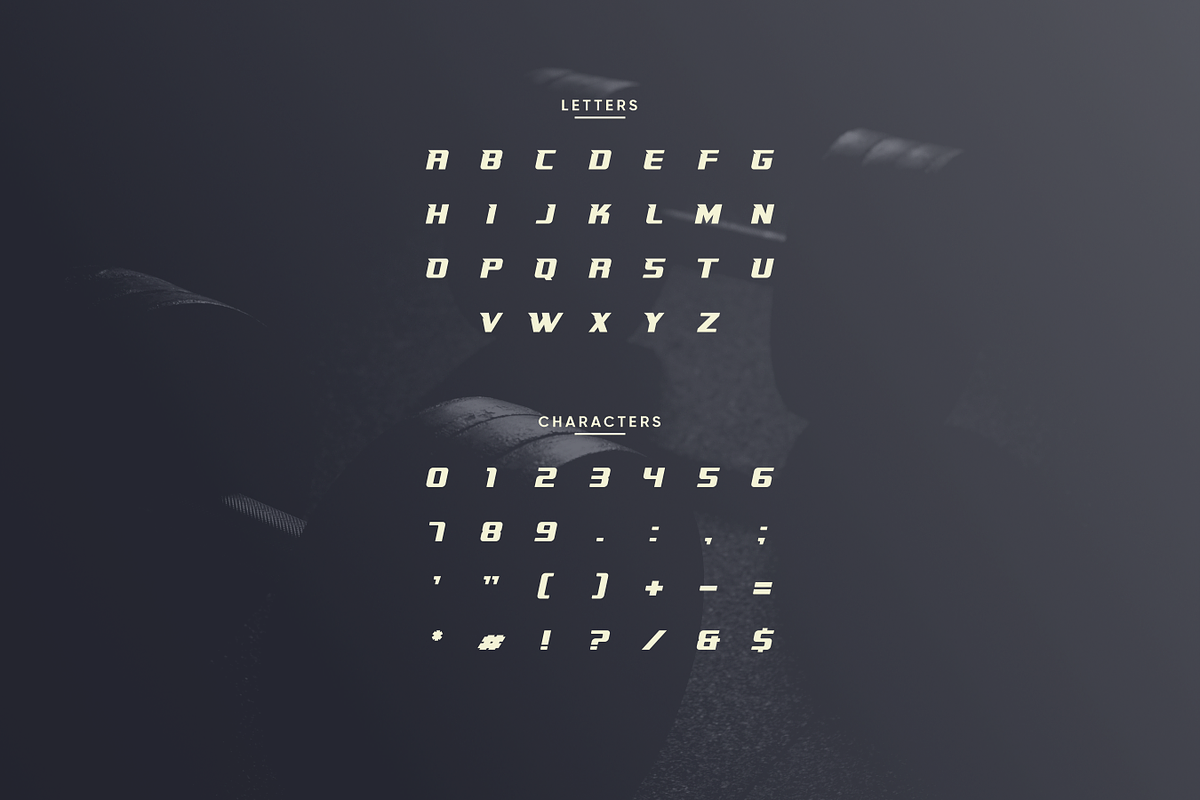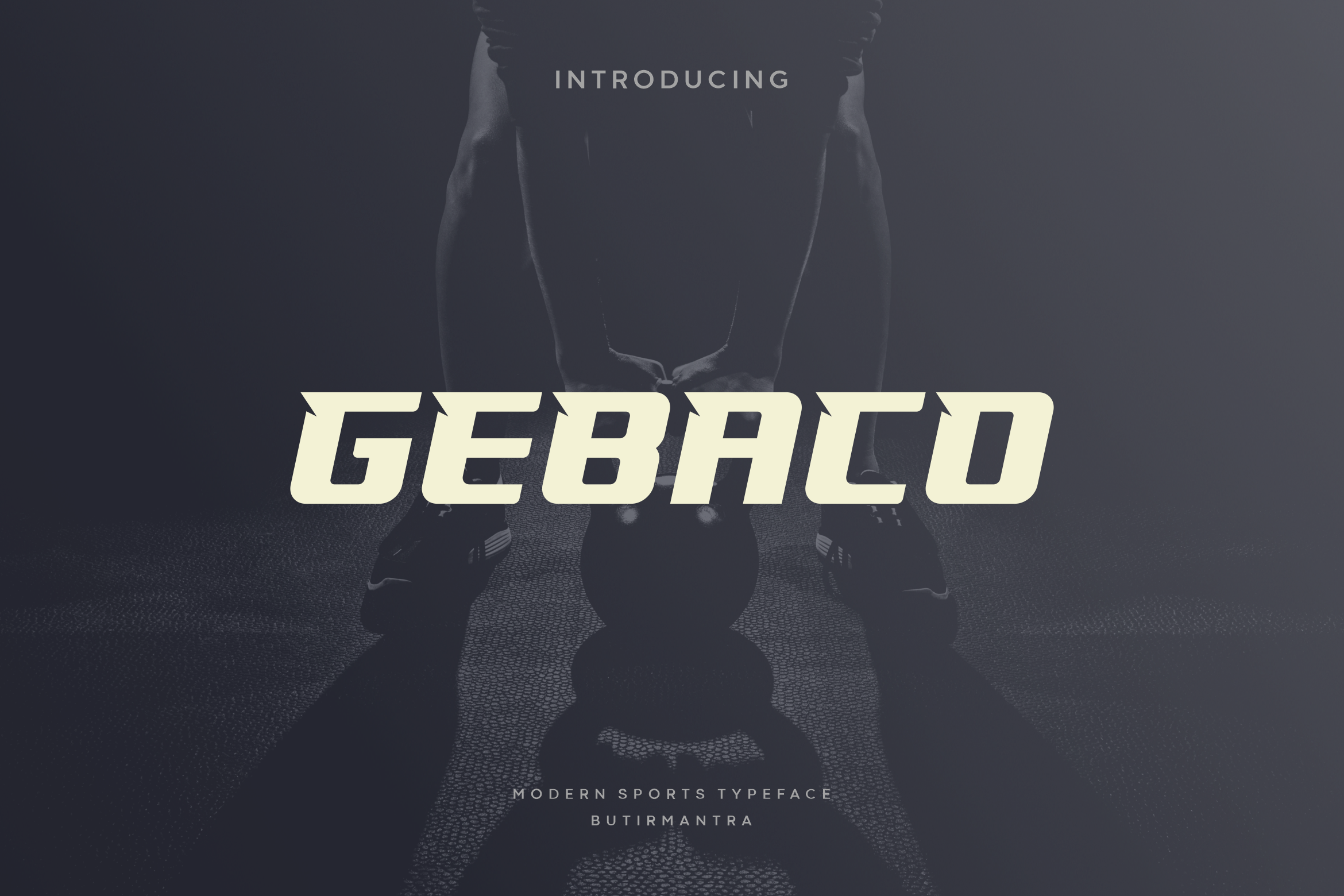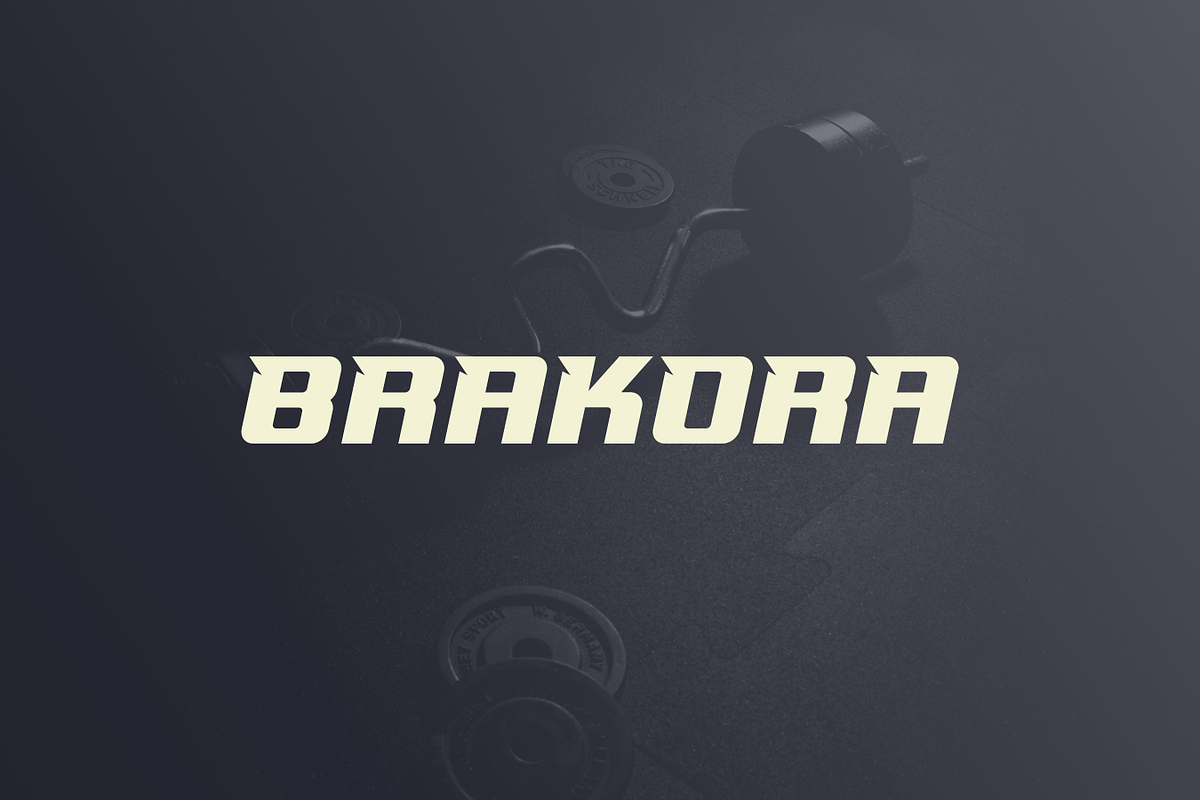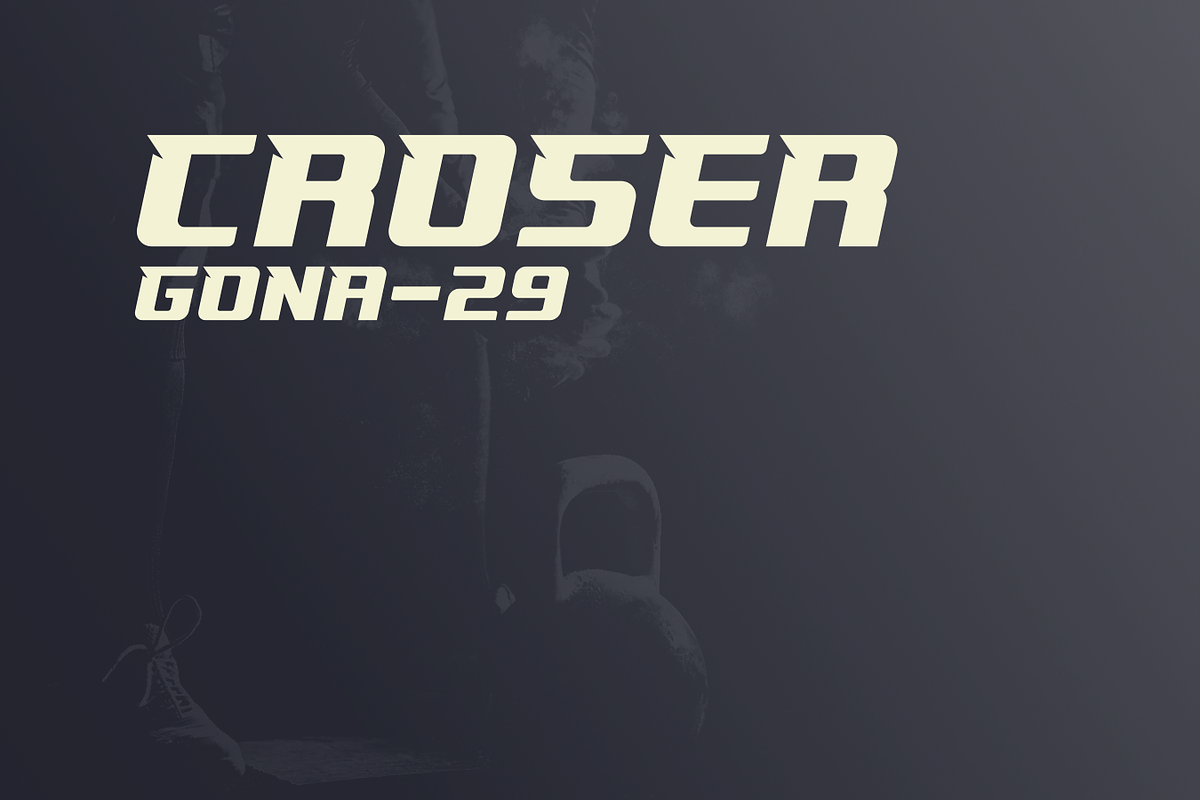
Gebaco - Modern Sport Typeface
Gebaco is a sports font with visual elegance, smooth curves, and beautiful, making your work look real and eye-catching. This font comes in all caps, making it more powerful and rigit, perfect for a wide variety of projects such as logos, headline, magazine, poster, and more. Gebaco is perfect for a variety of design sessions, including personal projects, studios, corporate, creative agencies, industrial, corporate, etc.
- Punctuation & Number